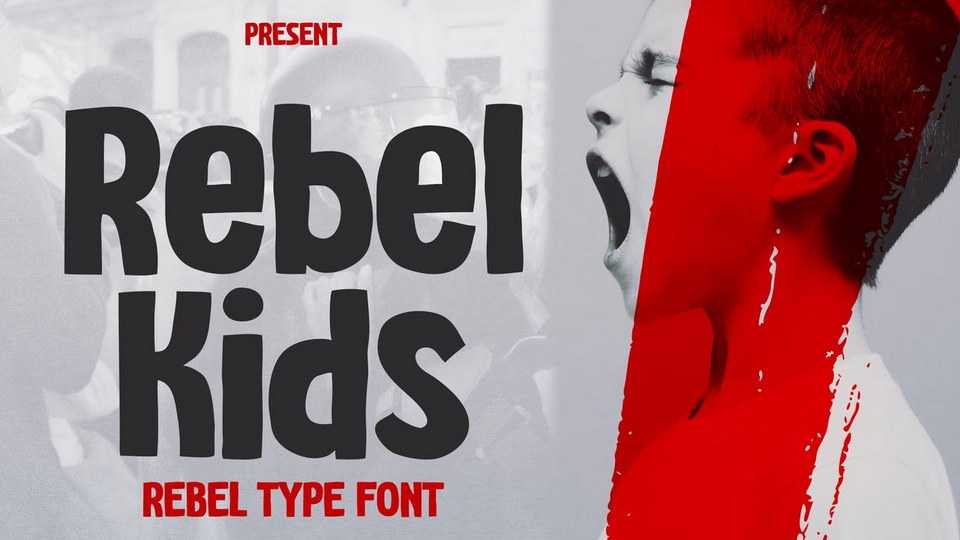
Download Rebel Kids font, a modern rebel typeface. Kids do have a lion in their inner self. And Rebel Kids is all about that. The spirit, the energy, all of them.